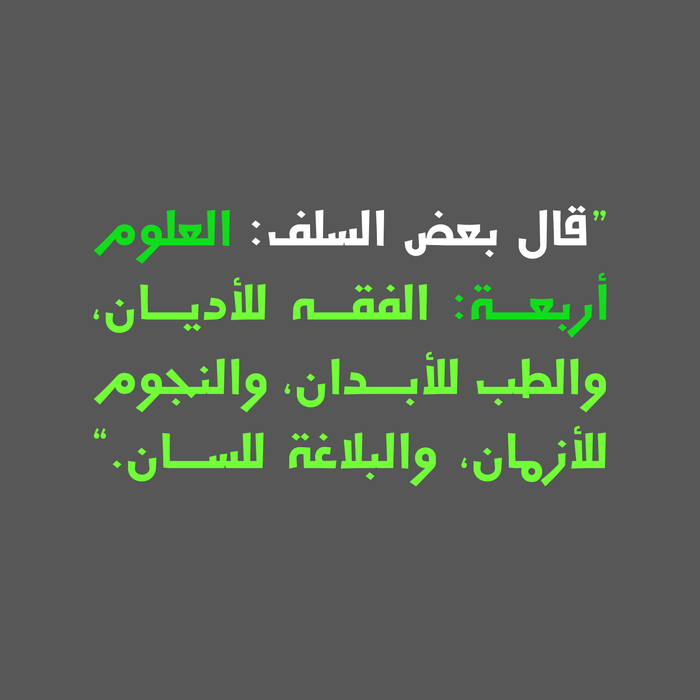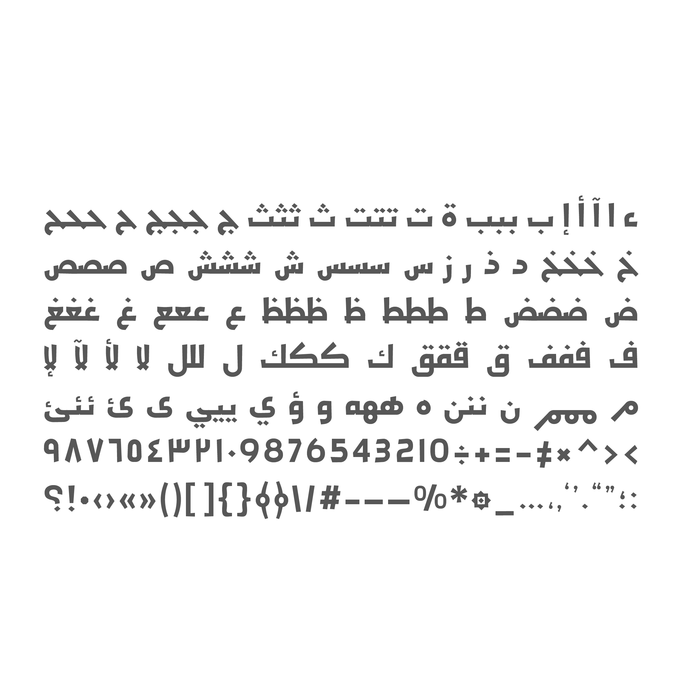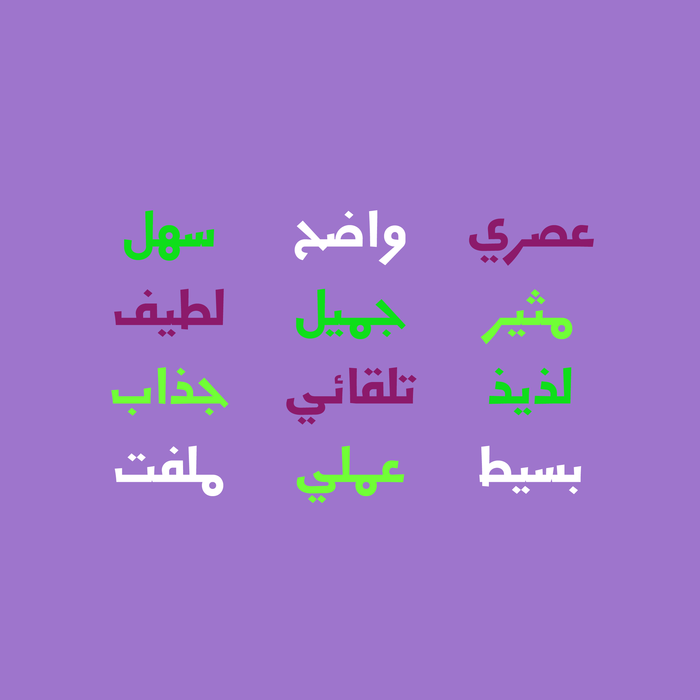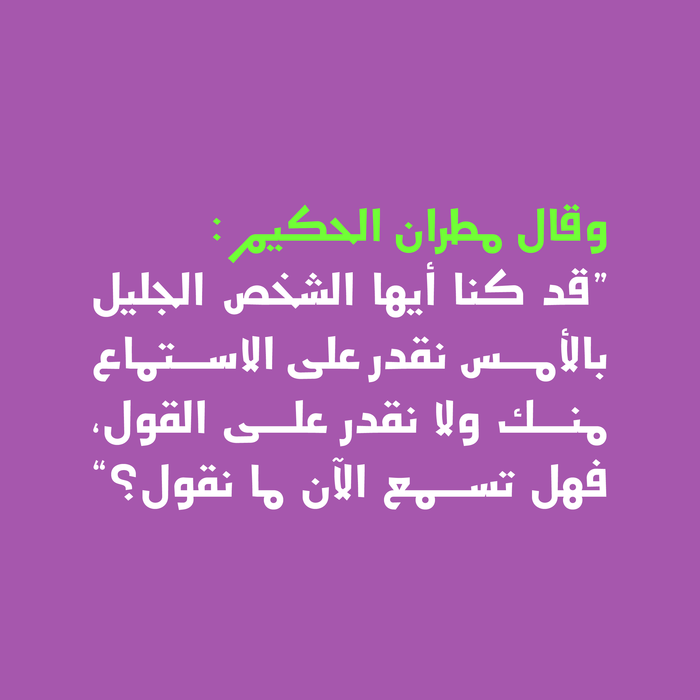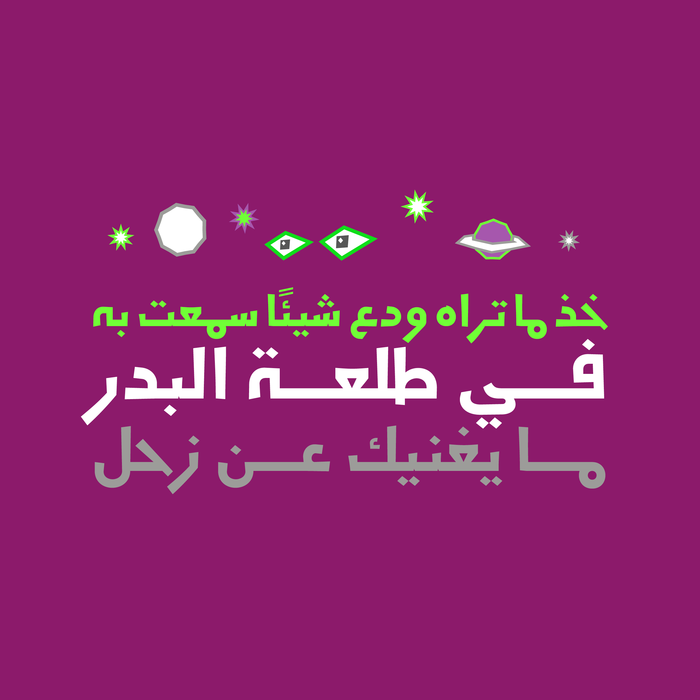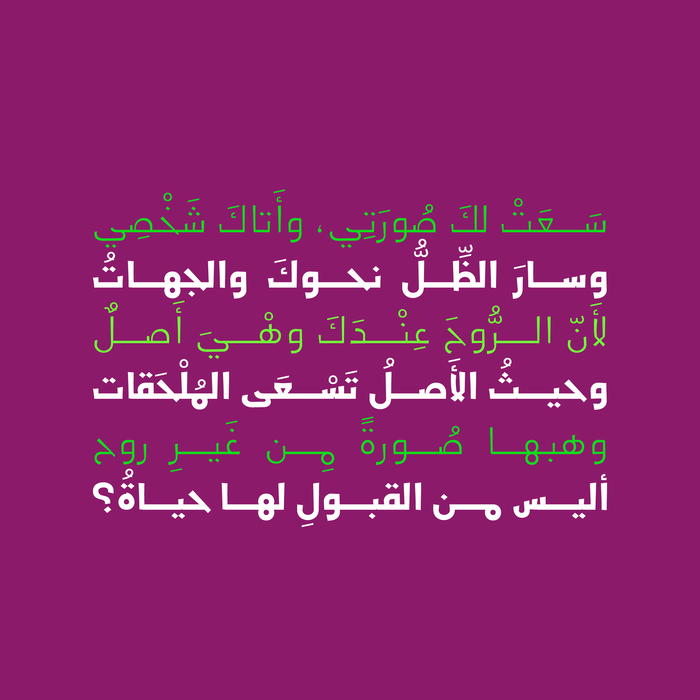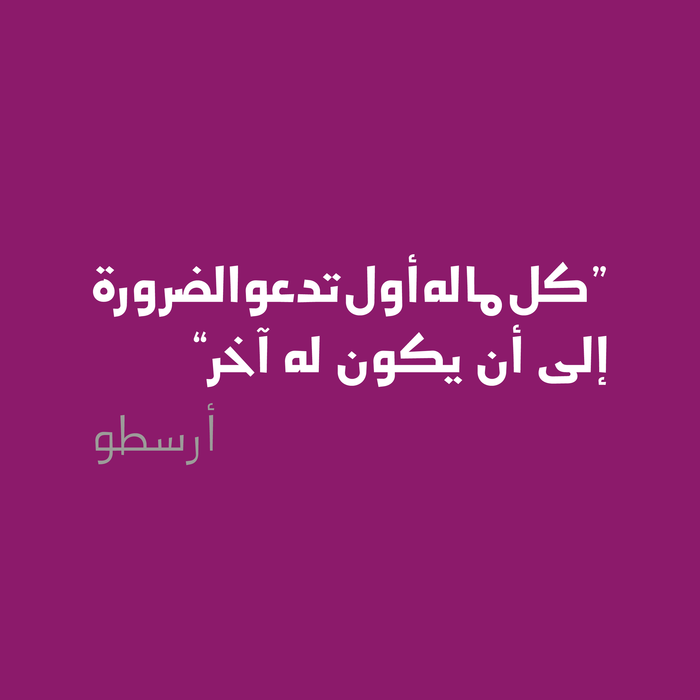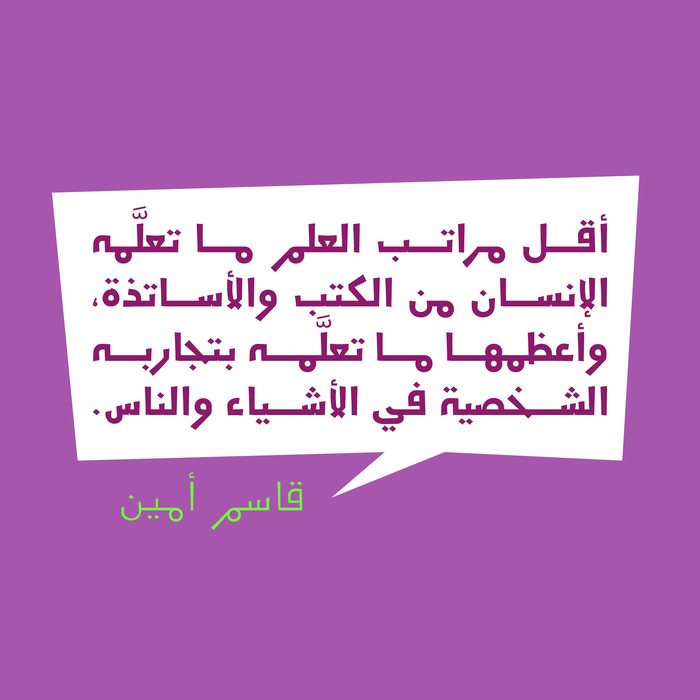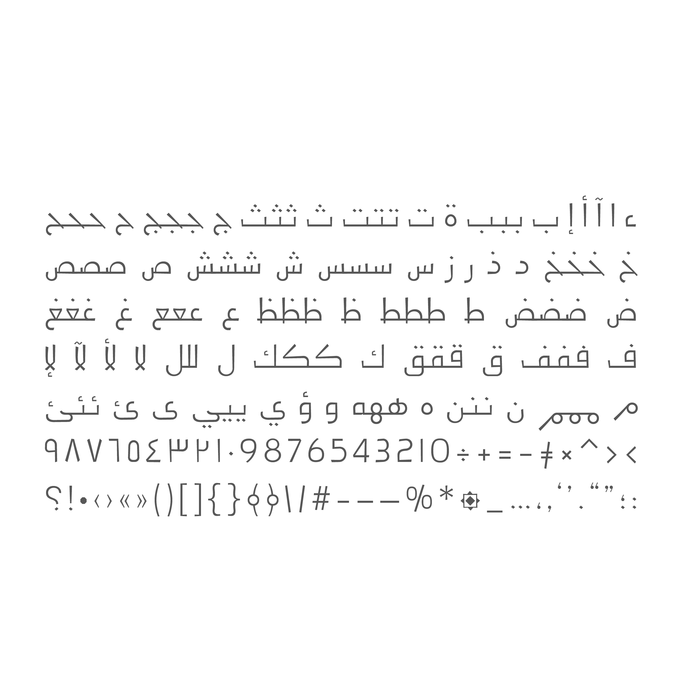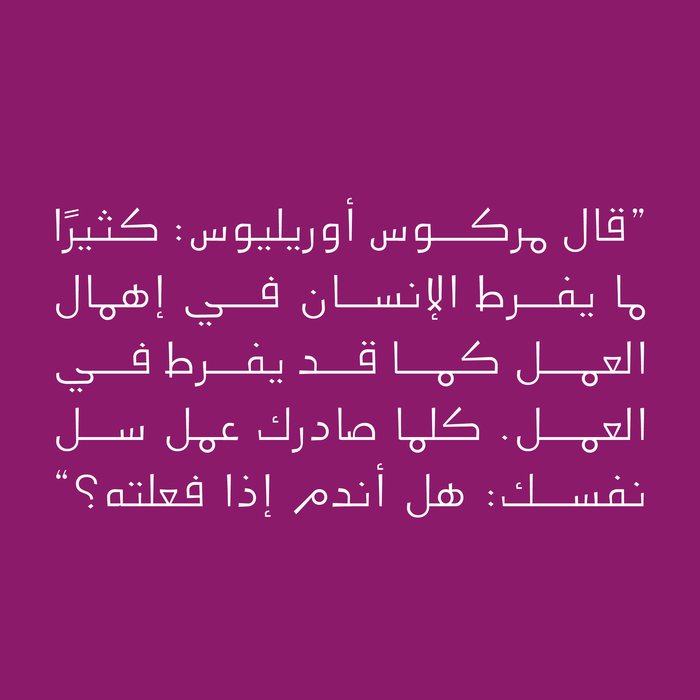
Jadeer - Arabic Font
Jadeer is an Arabic display font that is dressed in a casual contemporary style. It suits advertising, publication design, web design and mobile applications. Jadeer typeface includes two weights (Regular and Bold).